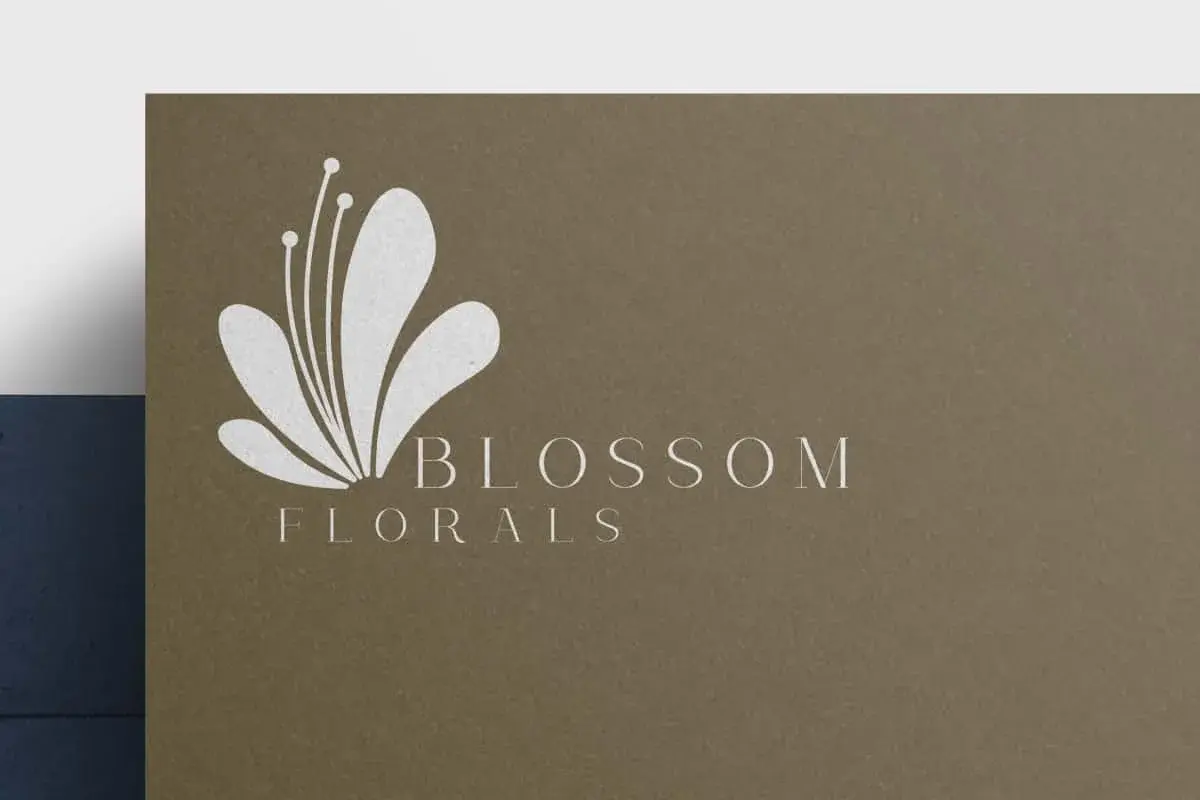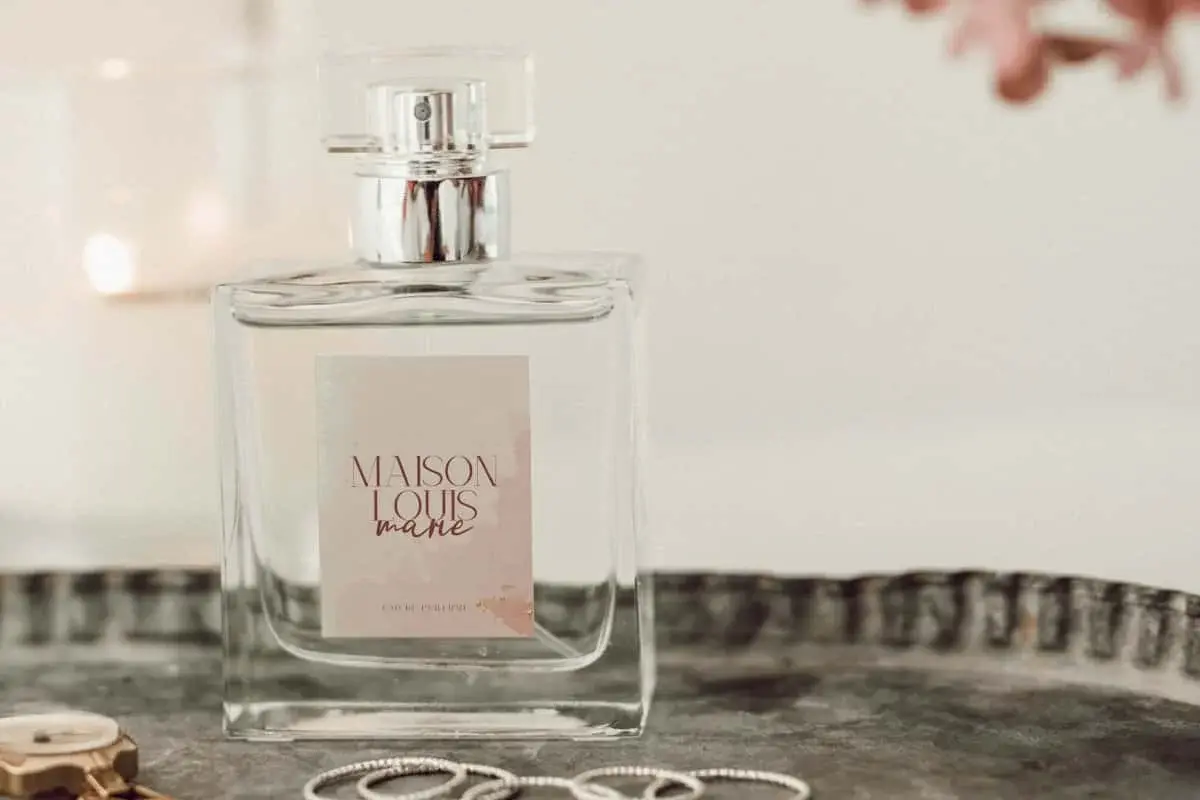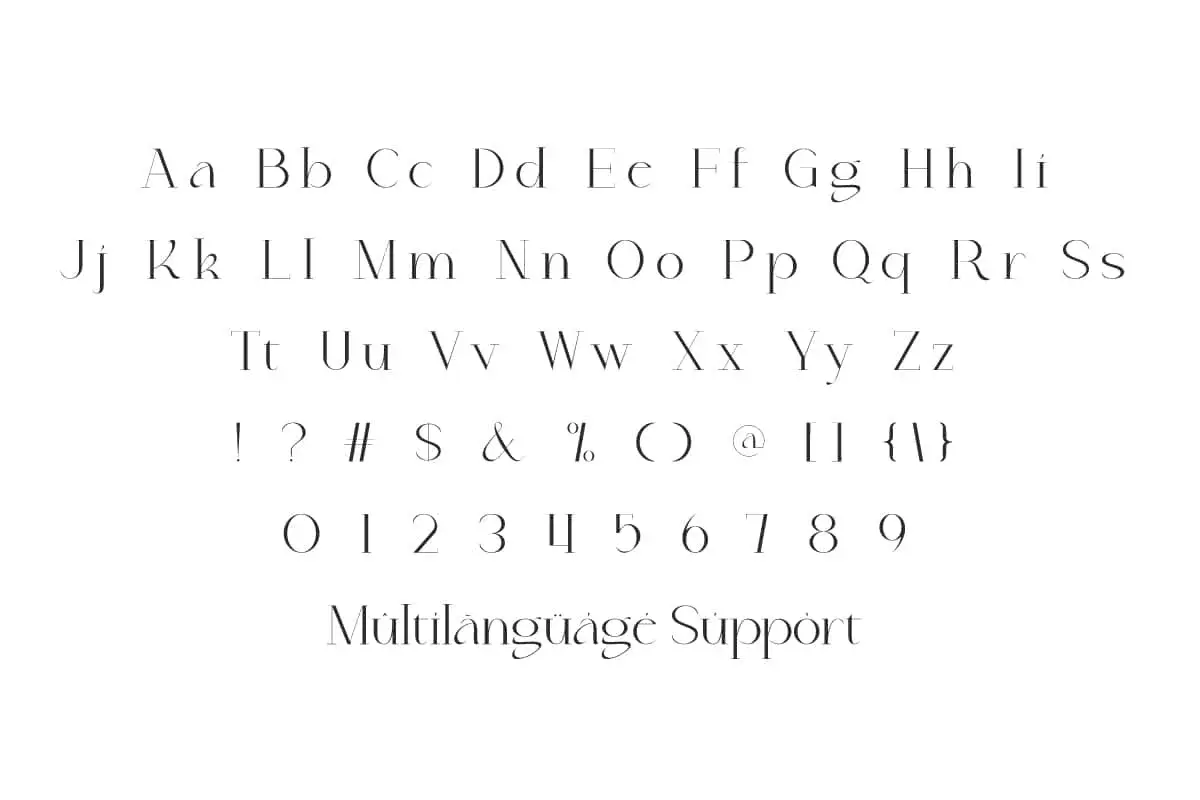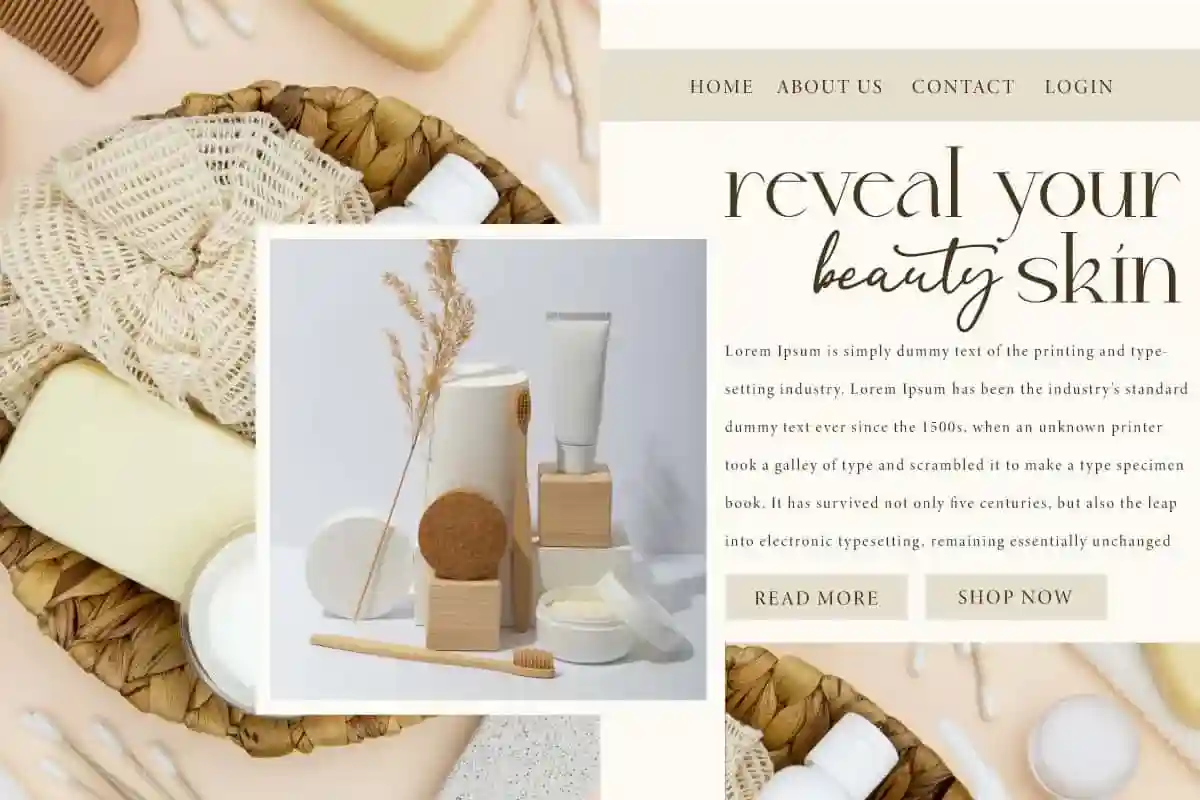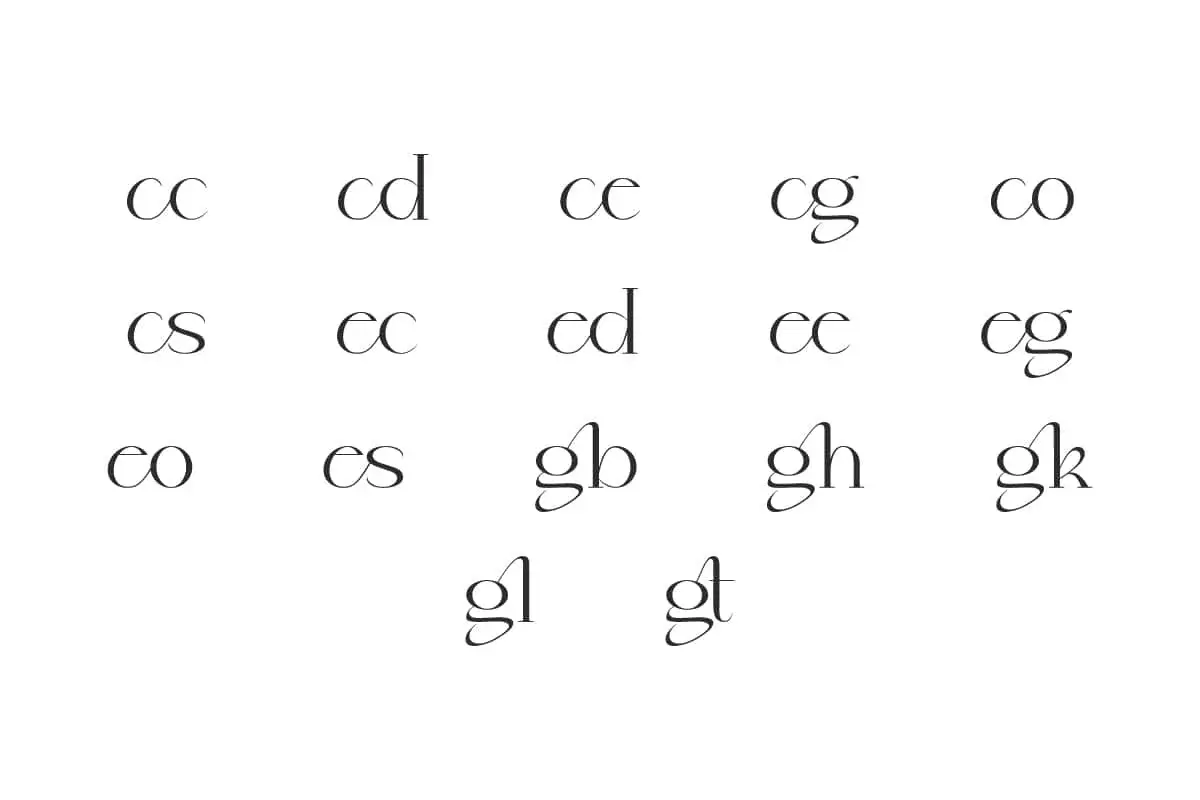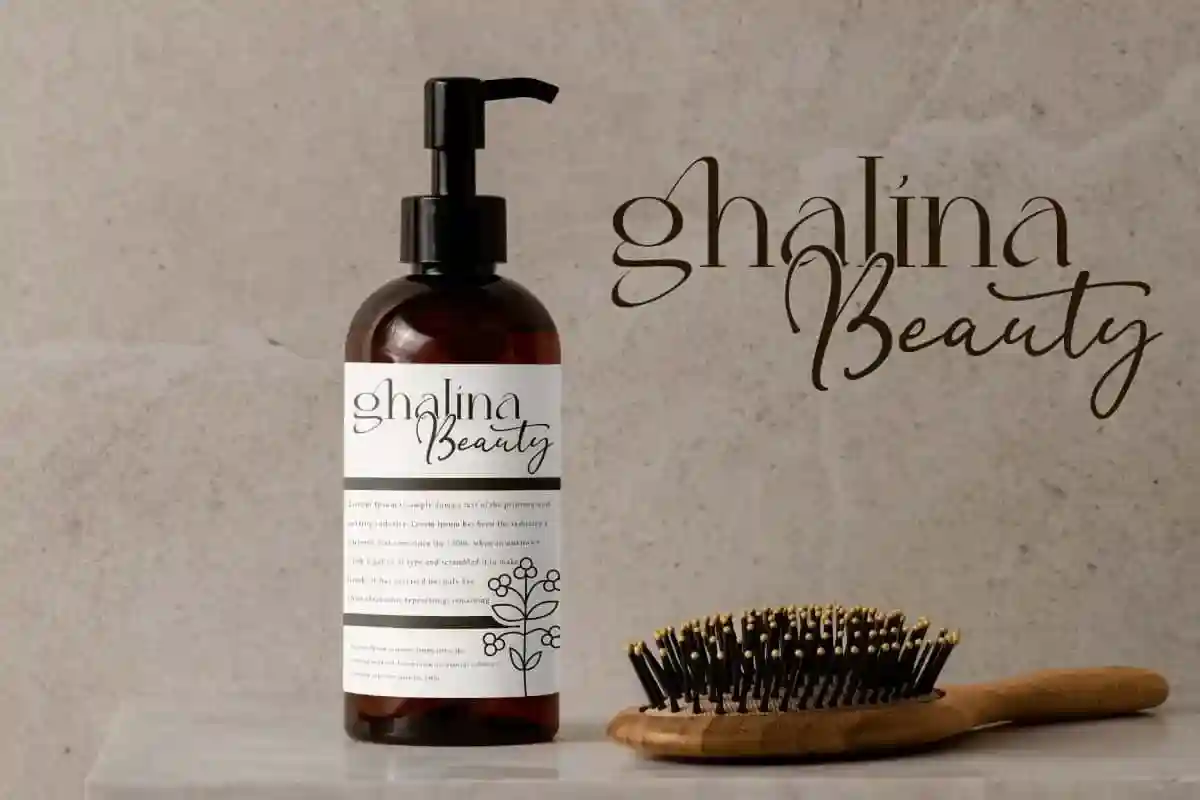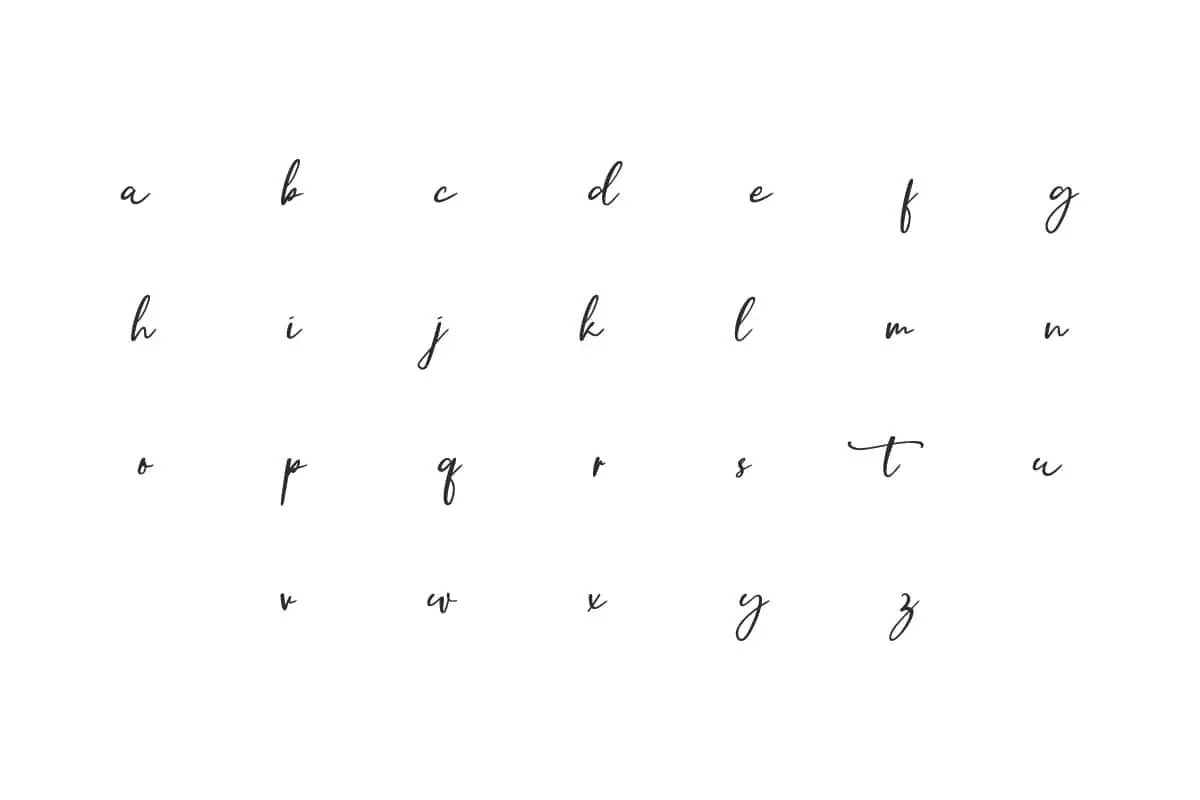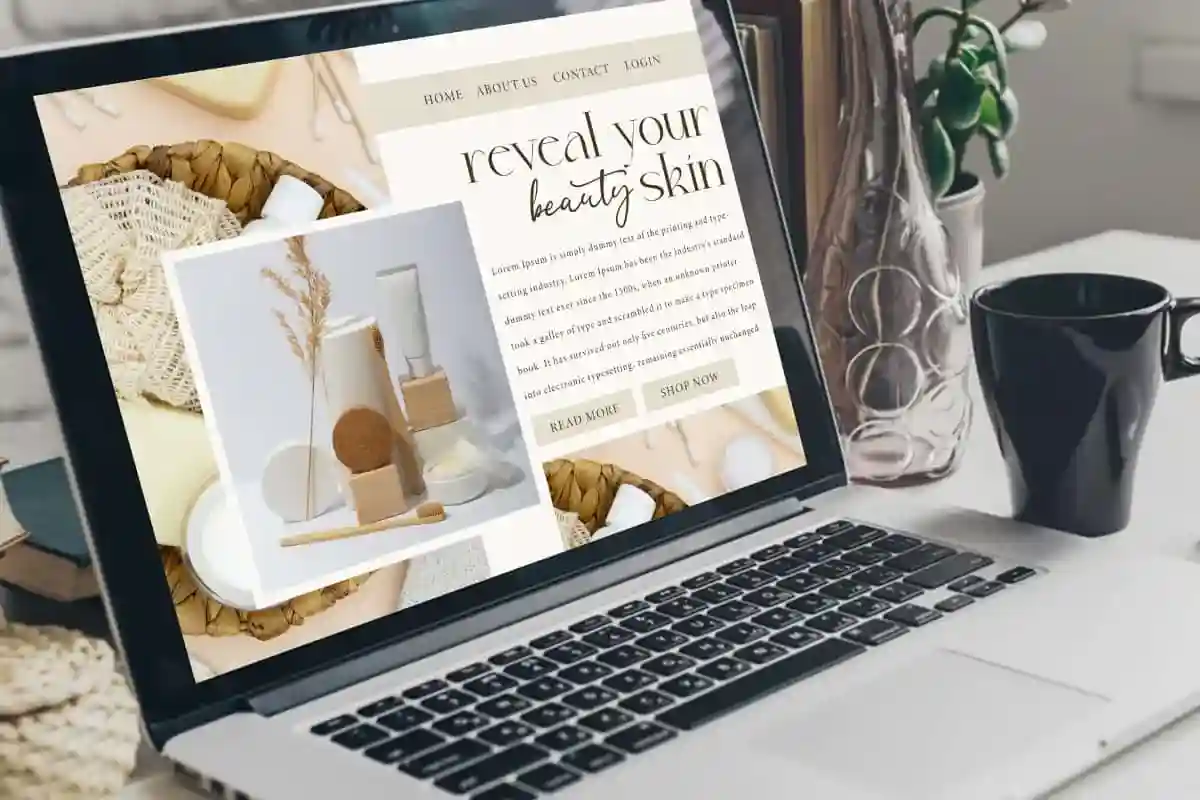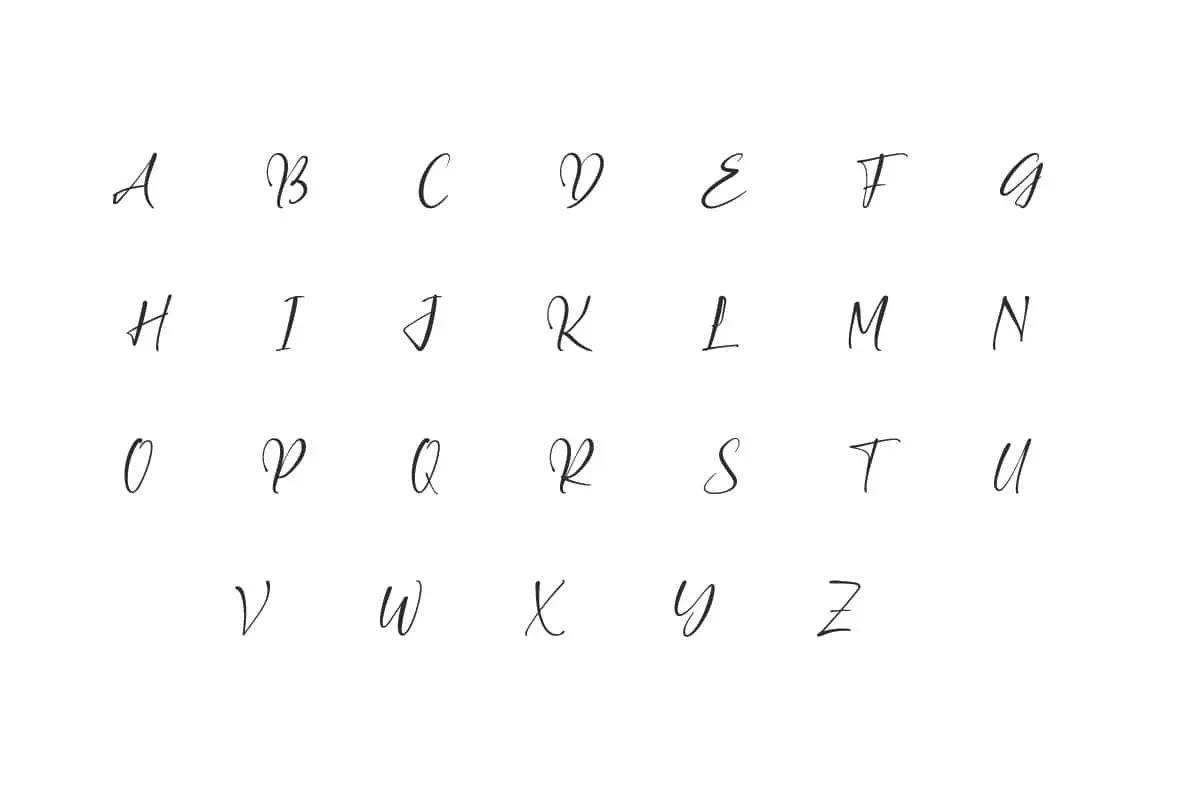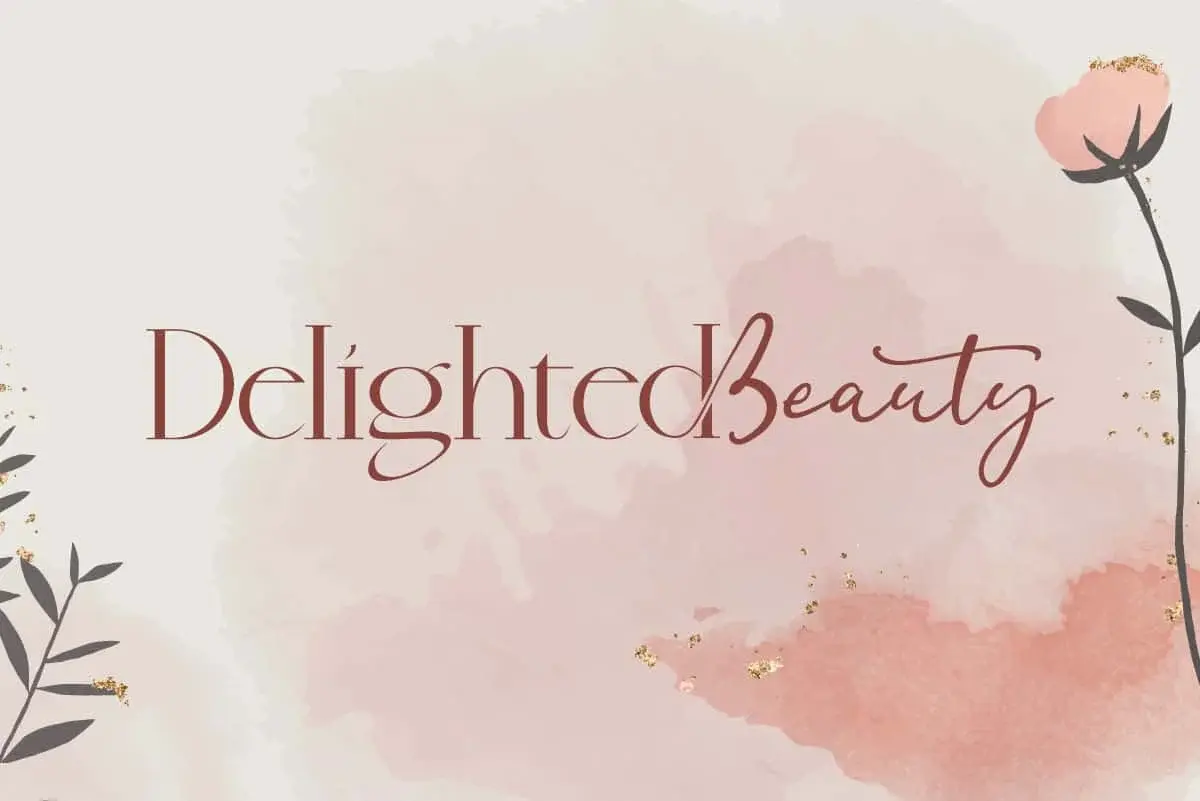
Delighted Beauty Font is a stylish sophisticated display font made with two different style. It’s different with its own charm and versatile in many designs.
Delighted Beauty Font is a stylish sophisticated display font made with two different styles. You can see it looks like a duo font, but actually the core font is a basic form of sophisticated light serif with the addition of alternative characters complete with upper and lower case letters in an elegant style. It’s all handmade and charming, isn’t it? This is perfect for billboard, card designs, packaging designs, product labels, watermarks, websites, etc.
Delighted Beauty Font has a classy and timeless look it is designed perfectly for each other, not only is it a strong standalone font, but it also pairs beautifully. This is a great choice for apparel, cosmetic, fashion, florist, skincare, spa salon, and others. The font contains a complete set of basic Uppercase and Lowercase characters, Numbers, Symbols and Punctuation marks. Also Ligature and Alternate which support font aesthetics.